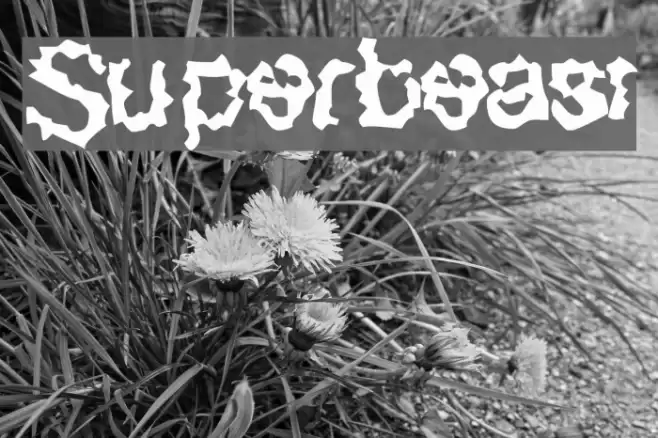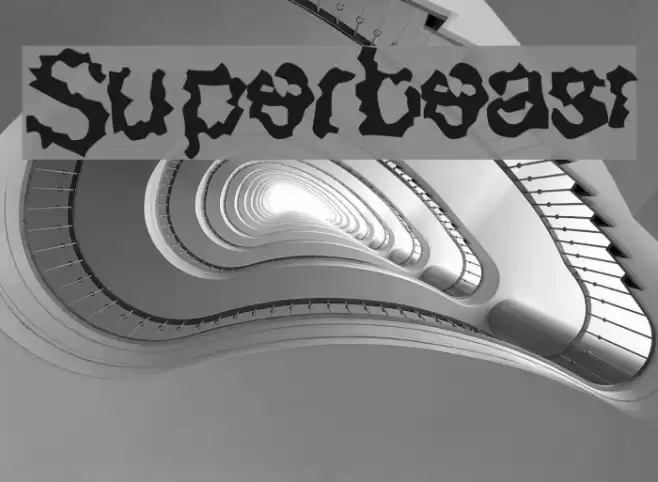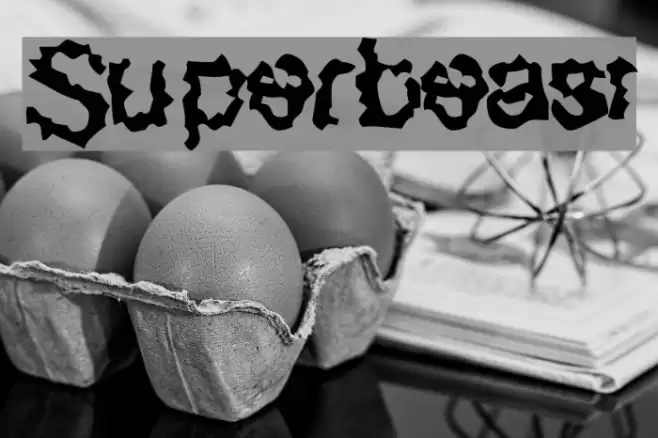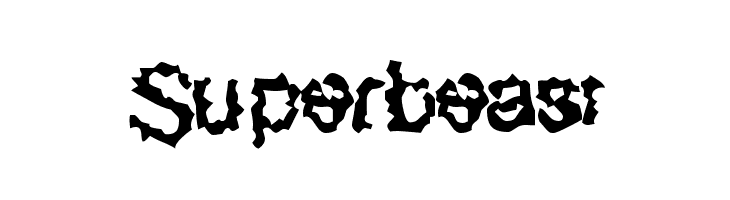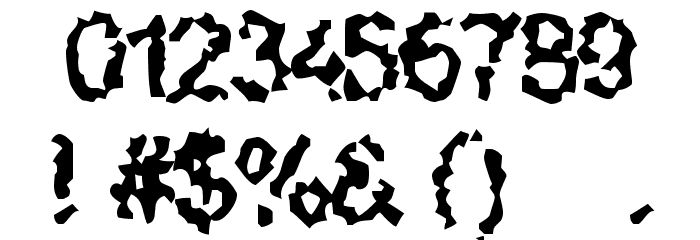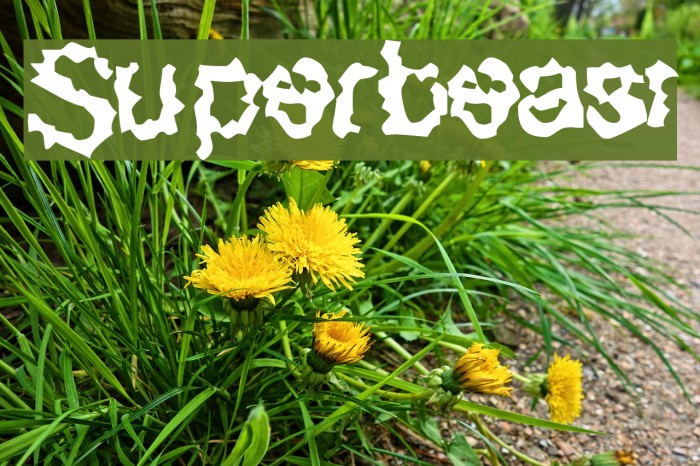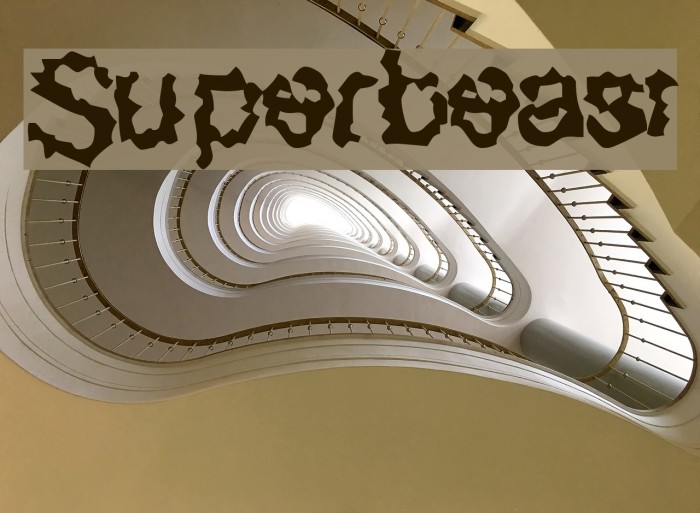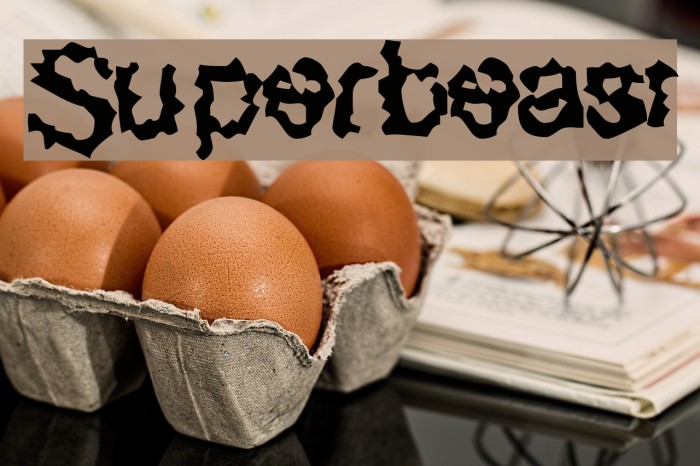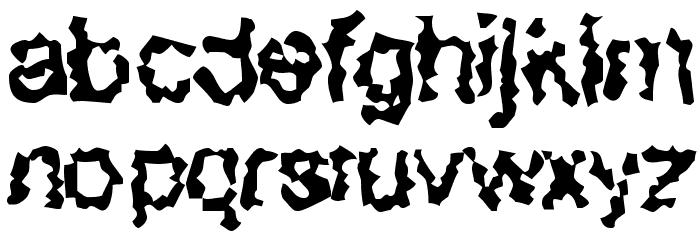
Superbeast Font
Superbeast Description
This font features a rugged and jagged design, reminiscent of torn paper or rough textures. The characters are bold and irregular, with a unique, distressed appearance that gives them a dynamic and edgy feel. The uppercase and lowercase letters maintain a consistent style, with sharp angles and uneven edges that create a sense of movement and energy. Numbers and special characters follow the same aesthetic, ensuring a cohesive look across all text elements. This font is ideal for projects that require a bold statement or a gritty, raw aesthetic.
A rugged, jagged font with a distressed, edgy appearance from Uncategorized fonts.
- Proposed Projects: Perfect for album covers, horror movie posters, edgy branding, or any project needing a bold, gritty aesthetic.